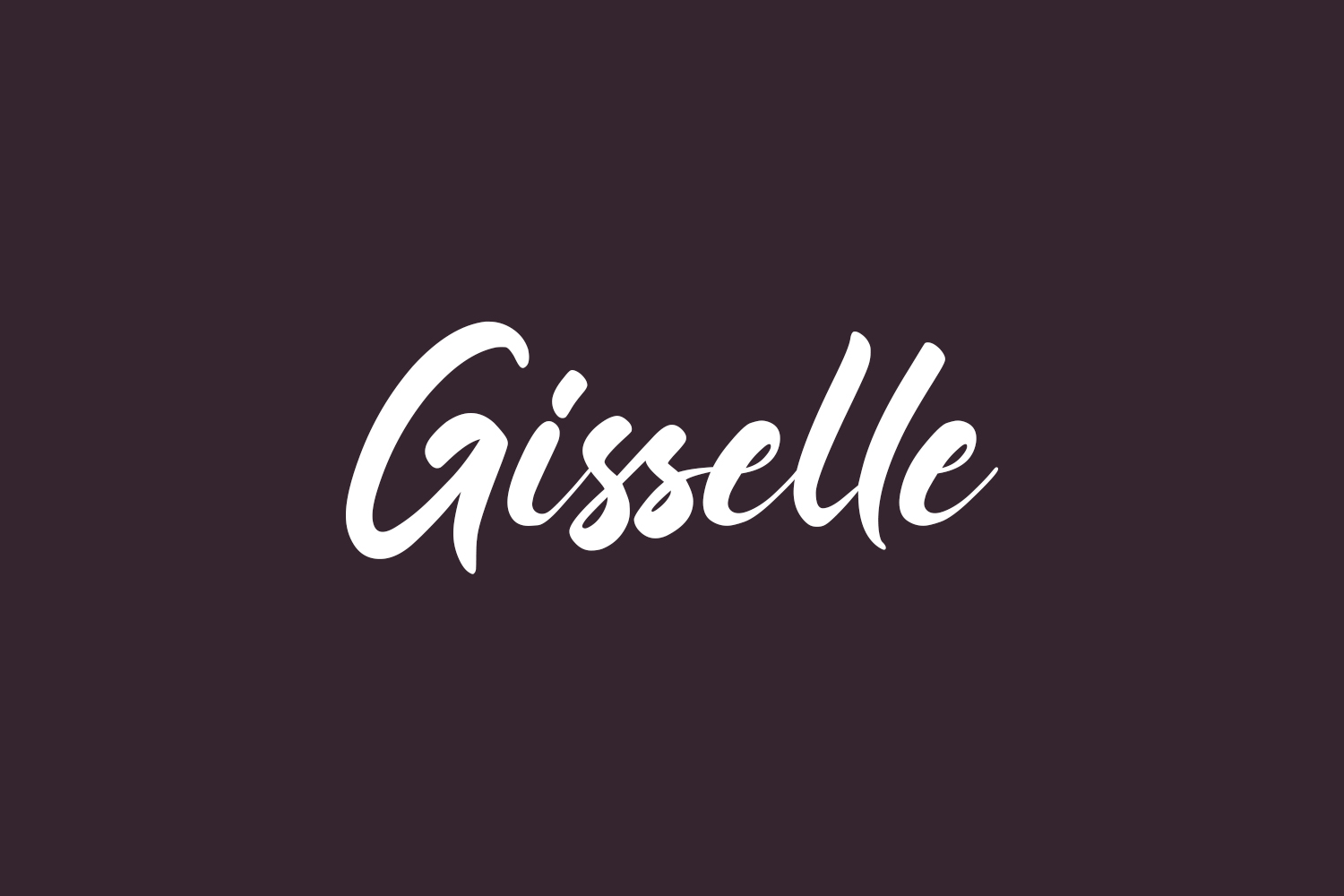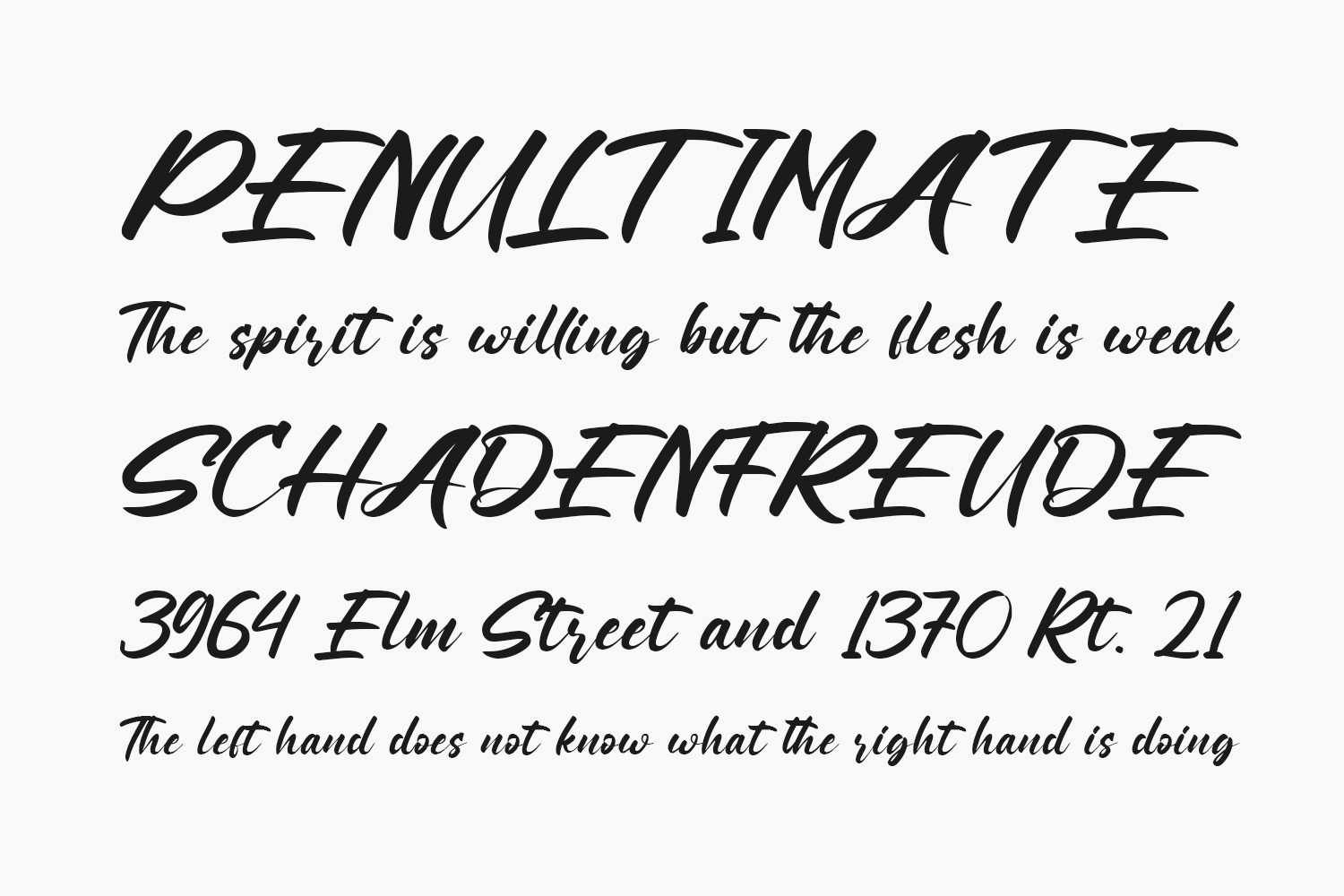
Gisselle Free Font is a beautiful and flowing paint brushed handwritten font with a unique feel and a stunning impact. It will add a luxury spark to any design project that you wish to create. Gisselle Free Font was designed by StringLabs and is free for personal use only. Please purchase the full version for commercial use.